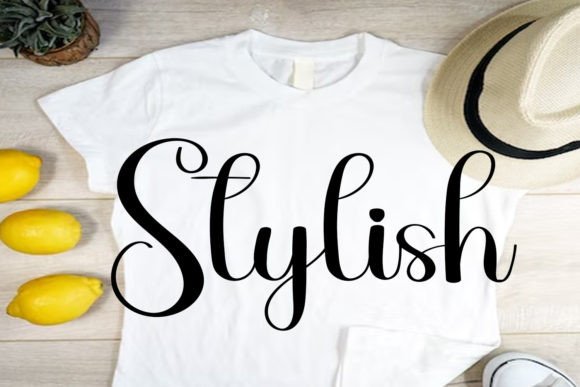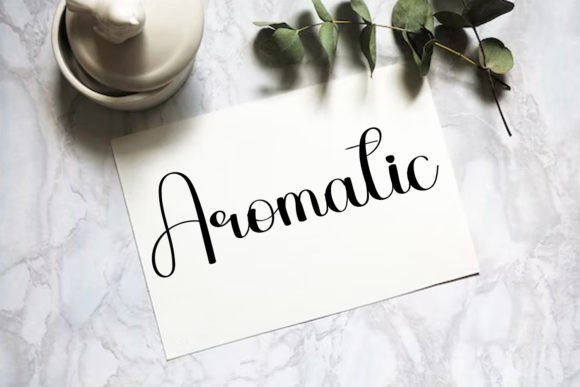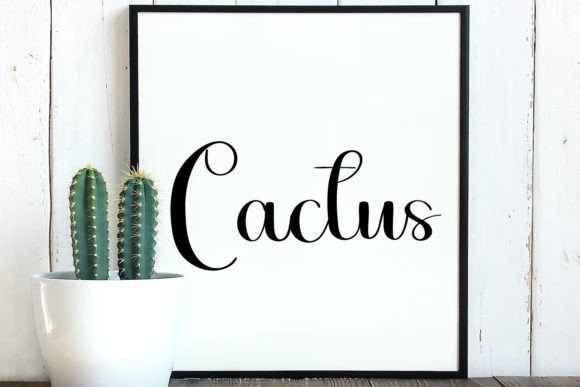
Introducing Grill Font: The Fresh and Neat Handwritten Font for All Occasions
Are you tired of using the same old fonts for your designs and crafts? Look no further! Grill Font is here to revolutionize your creative projects with its fresh and neat handwritten style. Whether you’re a designer, crafter, or simply someone who loves making greeting cards, Grill Font is the perfect addition to your font collection.
What Makes Grill Font Special?
Grill Font is a versatile and modern handwritten font that can be used for a wide range of projects. Its clean and elegant lines make it perfect for:
- Crafts: Use Grill Font to add a personal touch to your DIY projects, such as handmade cards, scrapbooking, and journaling.
- Digital Design: Add a touch of elegance to your digital designs, including social media graphics, blog posts, and website headers.
- Presentations: Make your presentations stand out with Grill Font’s clear and readable style.
- Greeting Cards: Create beautiful and heartfelt greeting cards for any occasion with Grill Font.
Why You’ll Love Grill Font
Grill Font has the potential to become your go-to font for several reasons:
- Fresh and Modern Style: Grill Font has a unique and contemporary style that will make your designs stand out from the crowd.
- Neat and Readable: The font’s clean lines and elegant style make it easy to read, even at small sizes.
- Versatile: Grill Font can be used for a wide range of projects, from digital designs to handmade crafts.
- Easily Customizable: You can adjust the font size, color, and style to fit your project’s needs.
Tips for Using Grill Font
To get the most out of Grill Font, here are some tips to keep in mind:
- Pair it with Other Fonts: Combine Grill Font with other fonts to create a unique and interesting contrast.
- Experiment with Colors: Try out different colors and textures to add depth and visual interest to your designs.
- Use it for Headings and Titles: Grill Font is perfect for headings and titles, but you can also use it for body text for a more personal touch.
Who Can Benefit from Grill Font?
Grill Font is perfect for:
- Graphic Designers: Add a fresh and modern touch to your designs with Grill Font.
- Crafters: Use Grill Font to add a personal touch to your handmade crafts and DIY projects.
- Small Business Owners: Create professional-looking designs and marketing materials with Grill Font.
- Bloggers and Social Media Influencers: Use Grill Font to create visually appealing blog posts and social media graphics.
In conclusion, Grill Font is a versatile and modern handwritten font that can elevate your designs and crafts to the next level. Its fresh and neat style makes it perfect for a wide range of projects, from digital designs to handmade crafts. With its ease of use and customization options, Grill Font has the potential to become your go-to font for all occasions.